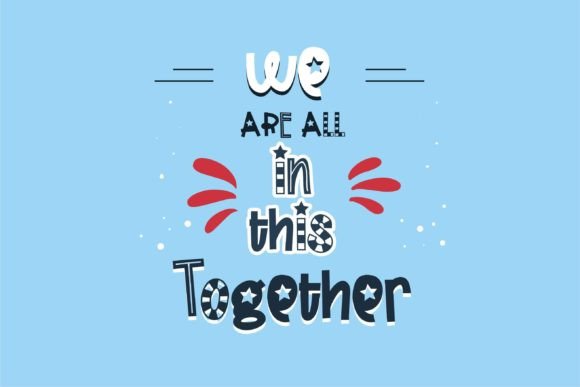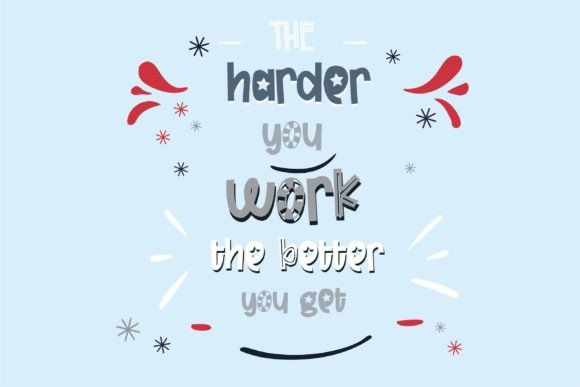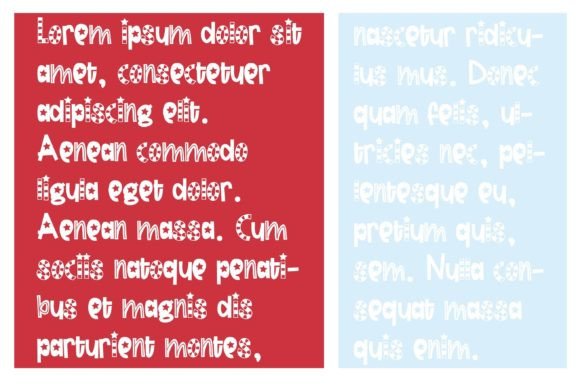
Introduction to Mr. America Font
Mr.
America is a fun and patriotic display font Whether you are using it for posters, quotes, titles, party invitations, book covers, or just any creation that requires a touch of starry joy, this font is a great choice.
Key Features of Mr. America Font
Why Choose Mr. America Font?
Mr. America Font offers exceptional quality and versatility, making it a valuable addition to your design toolkit. Whether you’re creating for personal projects or commercial use, Mr. America Font delivers professional results.